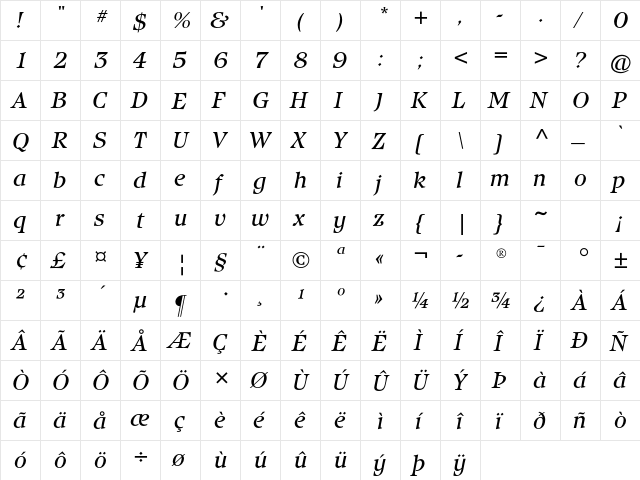
Isbell ITC Std Book Italic
| Foundry | International Typeface Corporation |
| Designer | Dick Isbell/Jerry Campbell |
Design Context for Isbell ITC Std Typeface
Isbell ITC Std offers clean, dependable letterforms without strong stylistic allegiance, making it a practical choice for designers who need flexibility. Its italic angle brings a sense of urgency and motion to the letterforms.
Pro Tip: Use Isbell ITC Std for emphasis, pull quotes, and subheadings where its slanted energy can add rhythm to the layout.